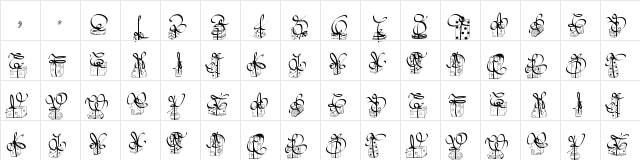
PWChristmasGifts Medium
Design Context for PWChristmasGifts Typeface
PWChristmasGifts is a composed and adaptable typeface that performs quietly and consistently across a wide range of design contexts.